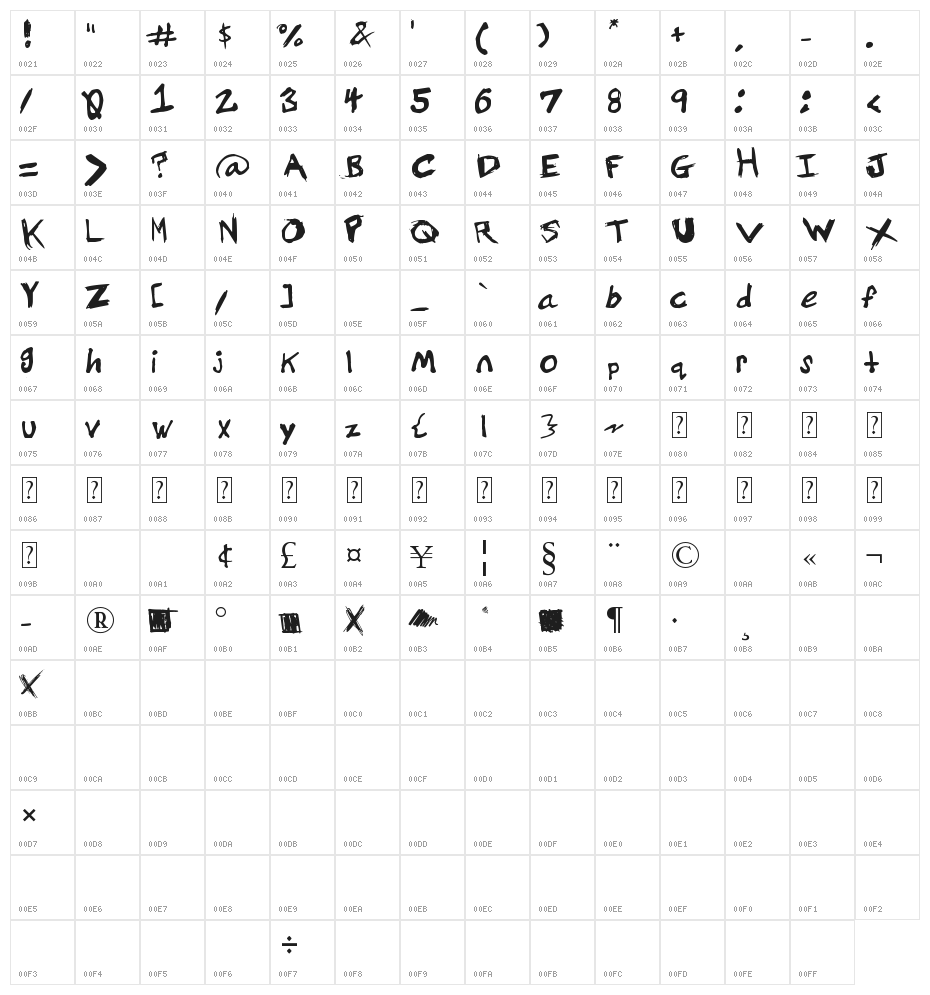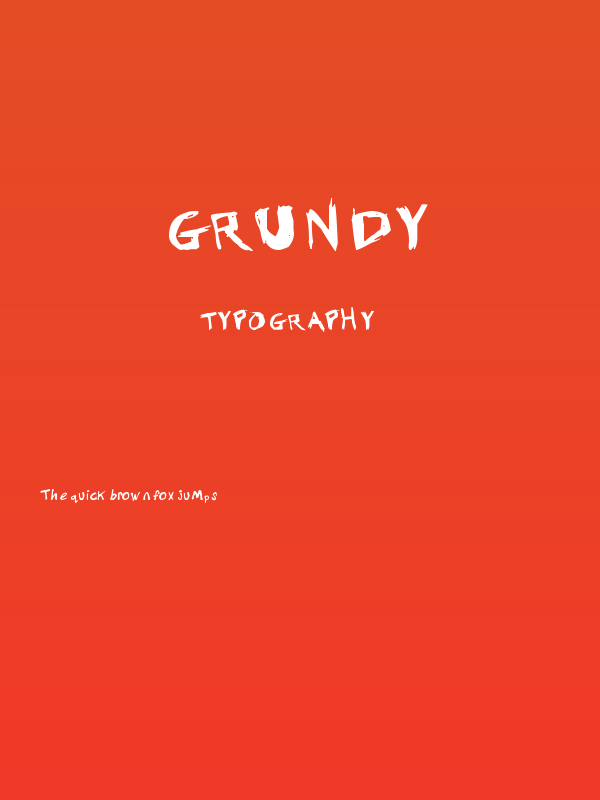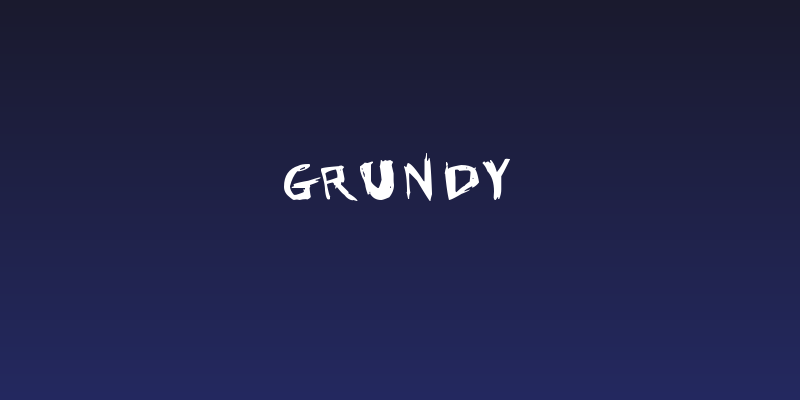
Grundy Font
Grundy Description
This font features a bold, expressive style with a hand-drawn appearance. The characters are irregular and dynamic, giving a sense of movement and energy. The strokes are thick and uneven, with a rough, textured look that adds to its raw and edgy feel. The uppercase and lowercase letters maintain a consistent style, while the numbers and special characters complement the overall aesthetic. This font is perfect for projects that require a bold statement or a creative, artistic touch.
| Overall Style | Modern, Artistic |
| Use Case | Headlines, Logos, Artistic projects |
| Proposed Projects | Ideal for posters, album covers, graffiti art, and creative branding projects. |